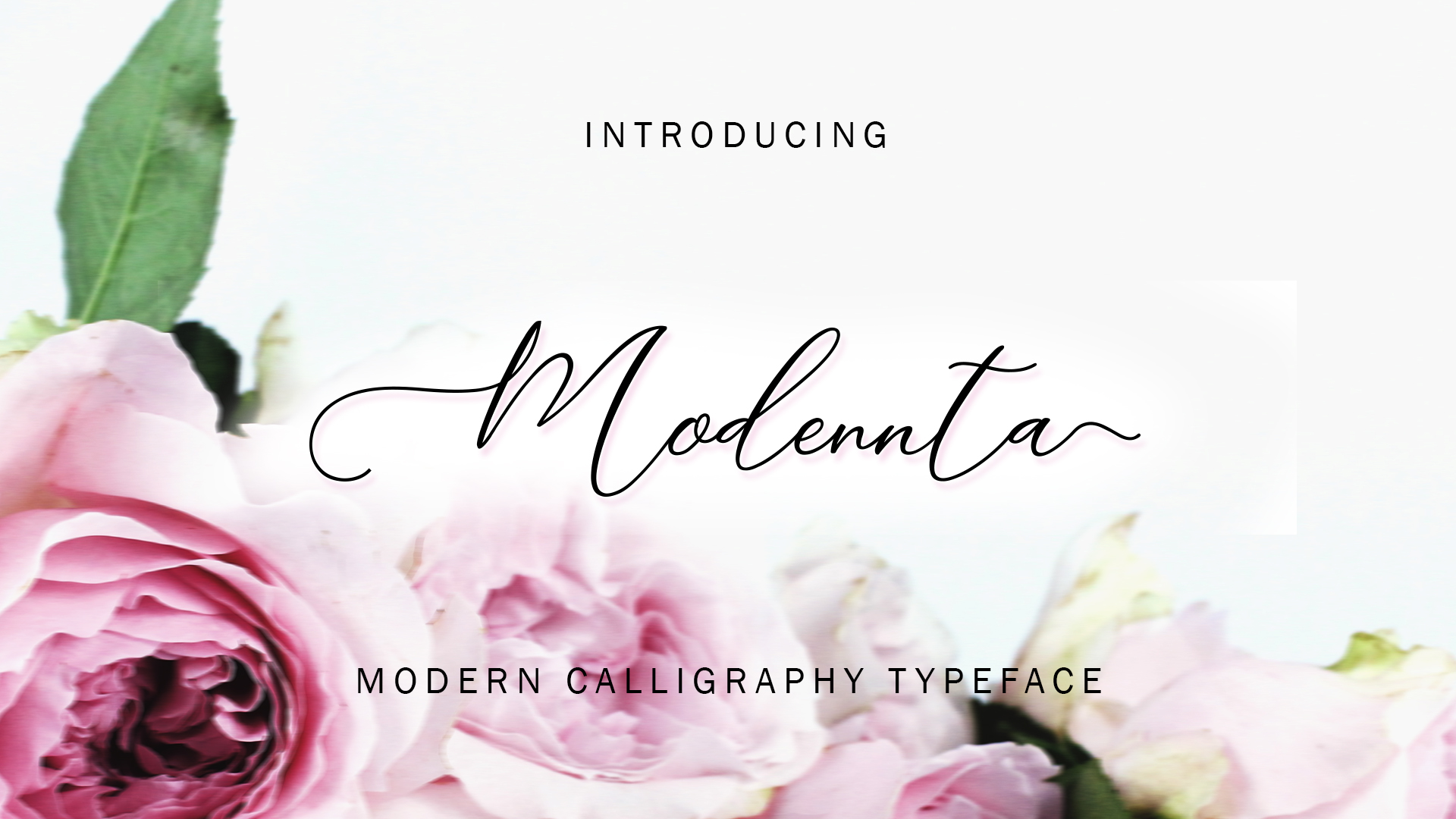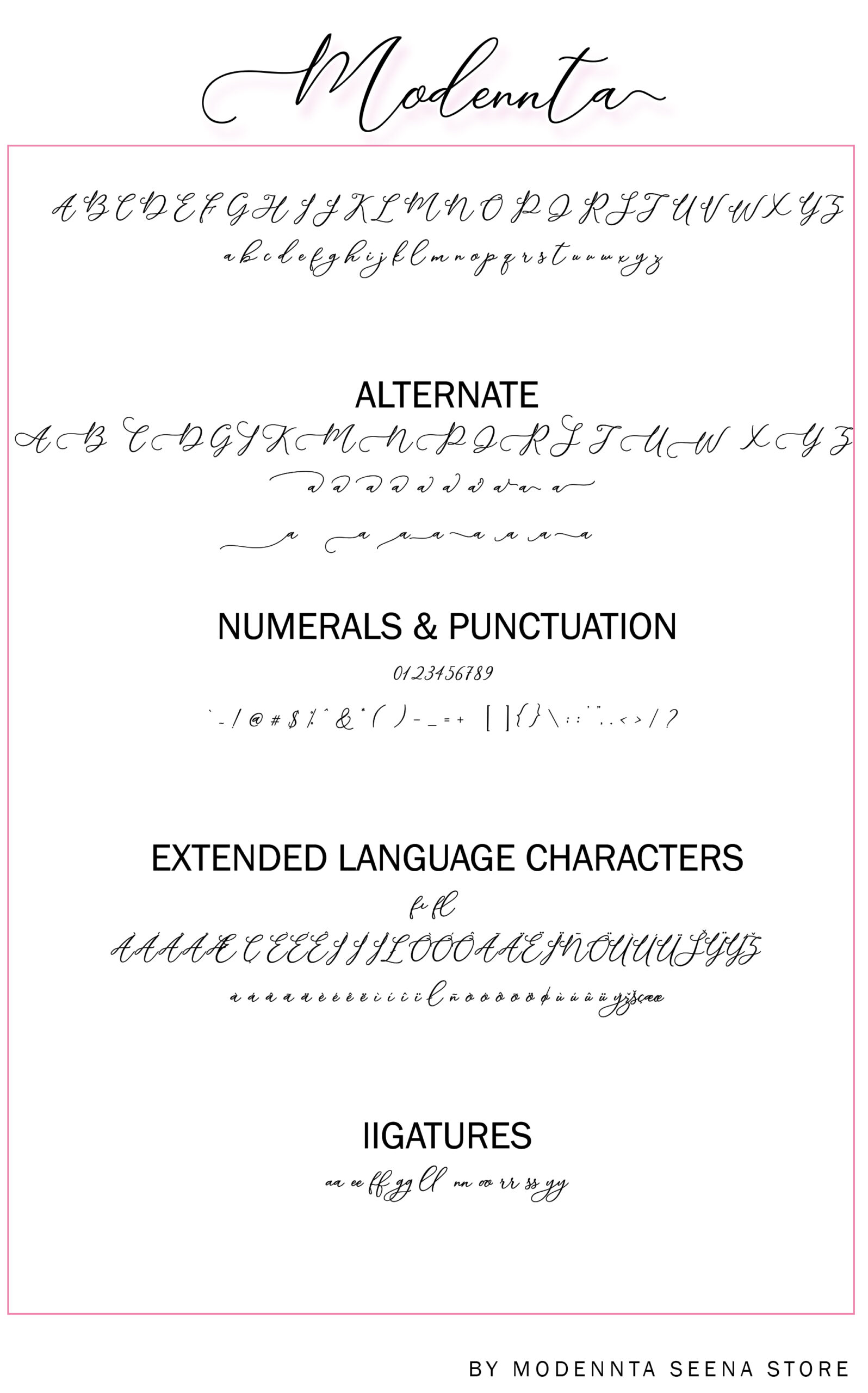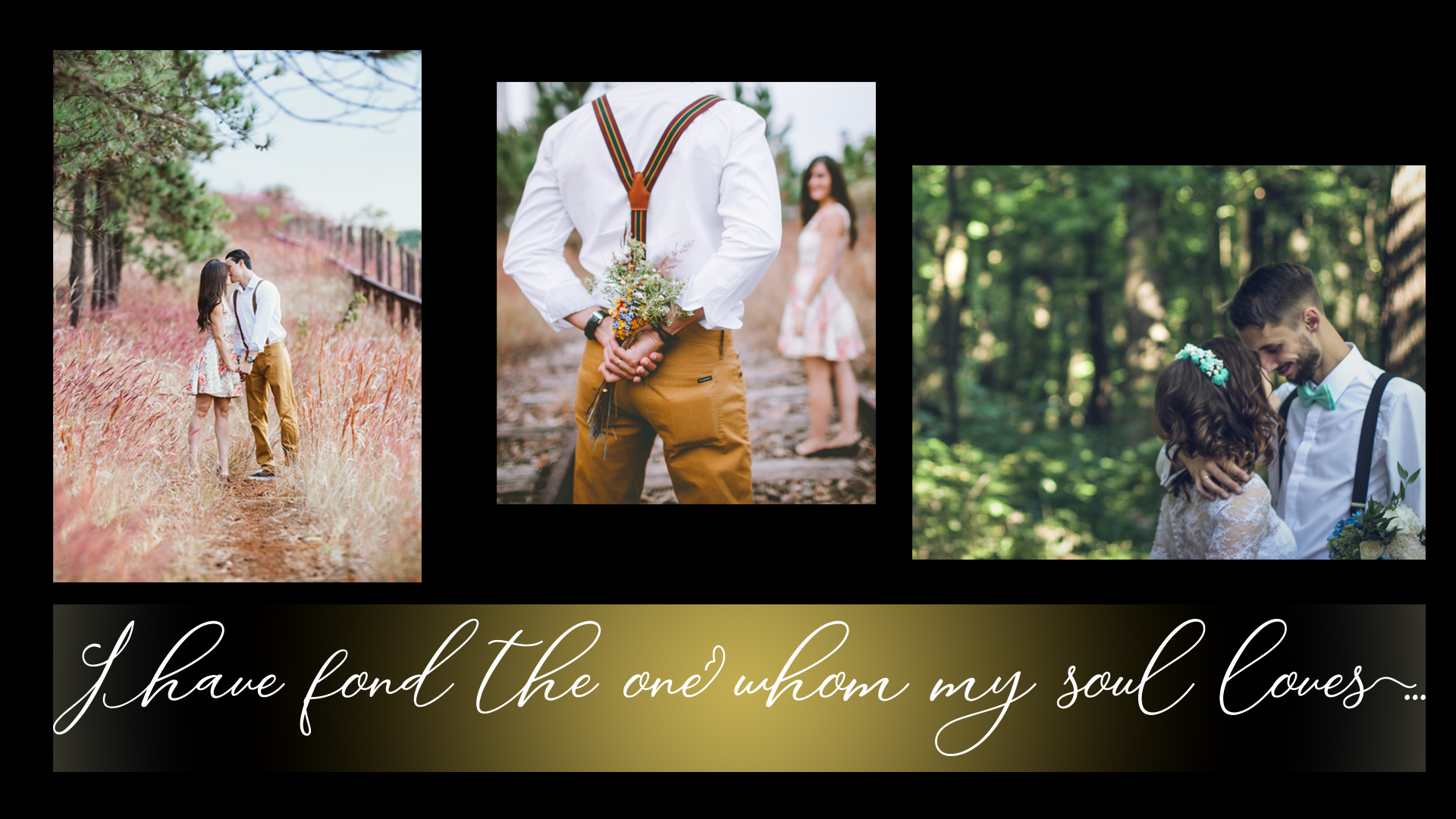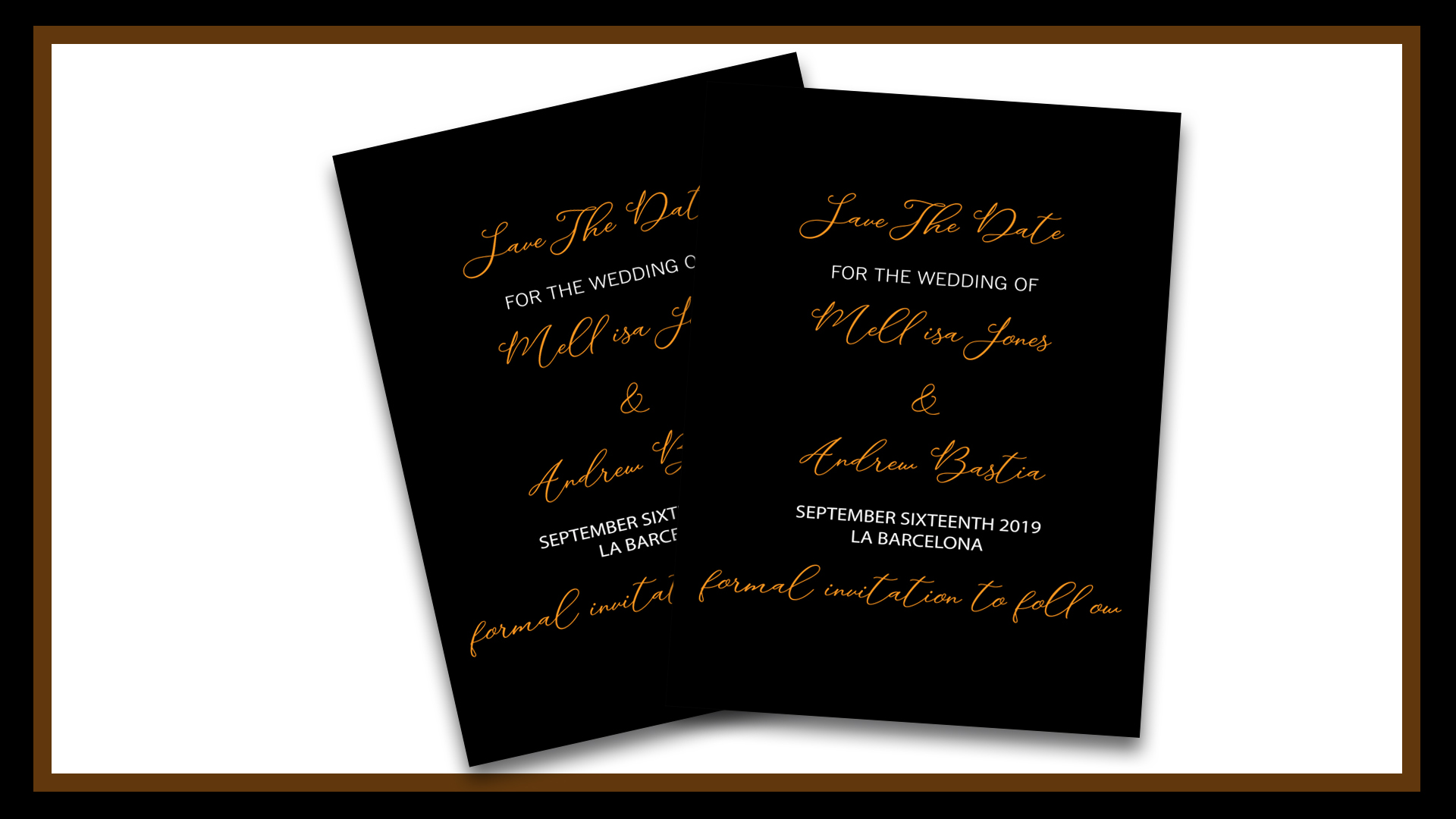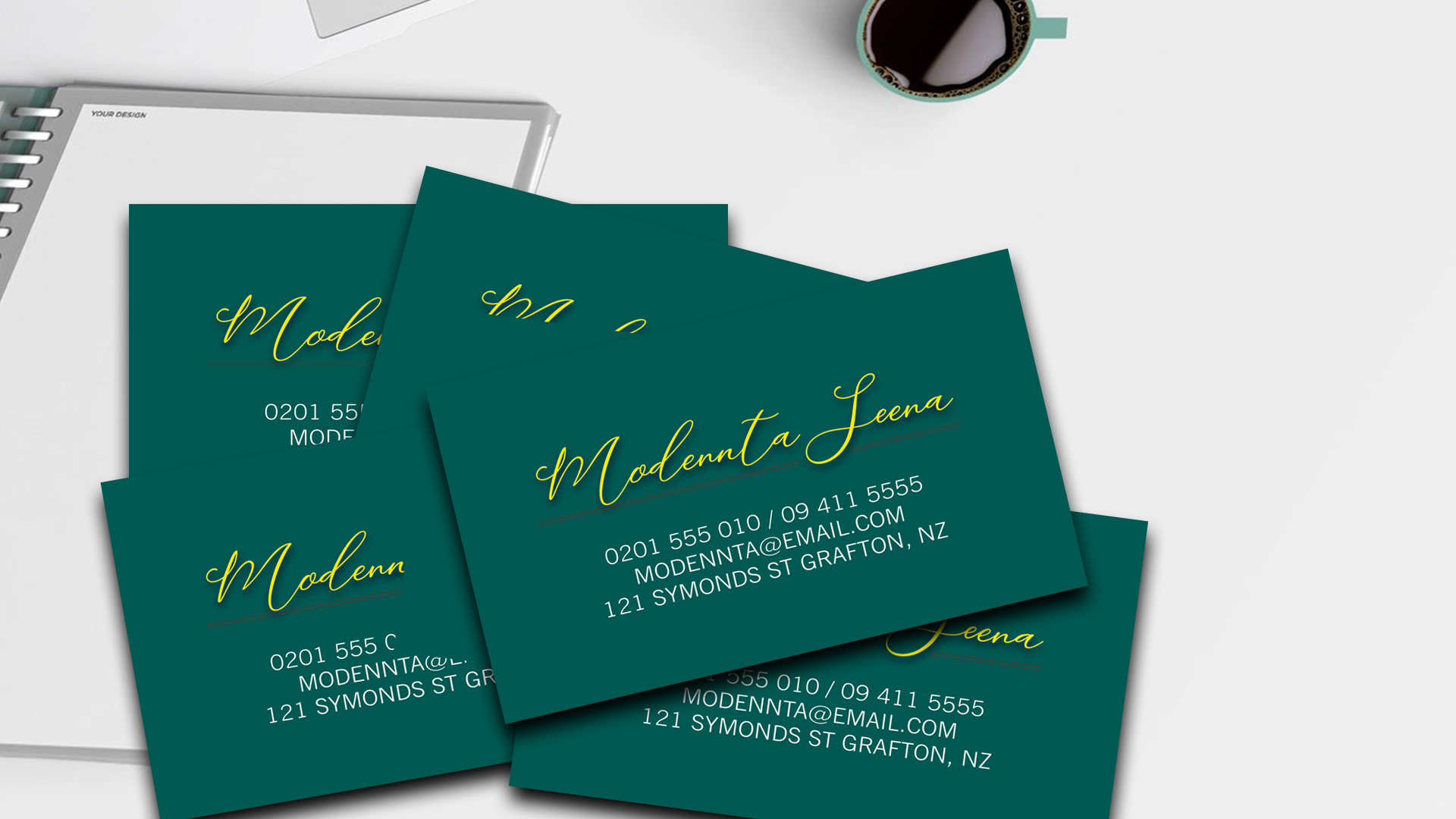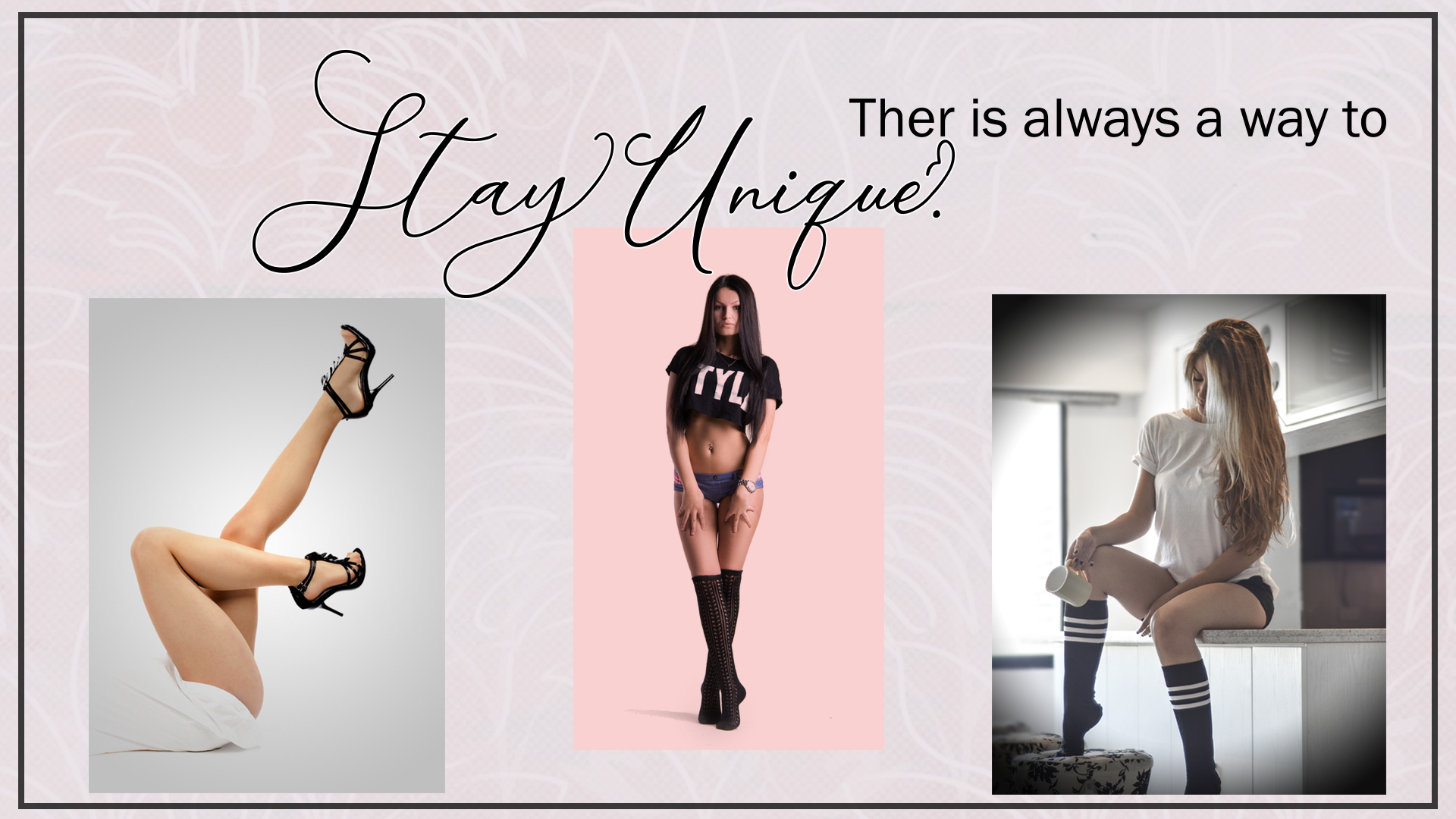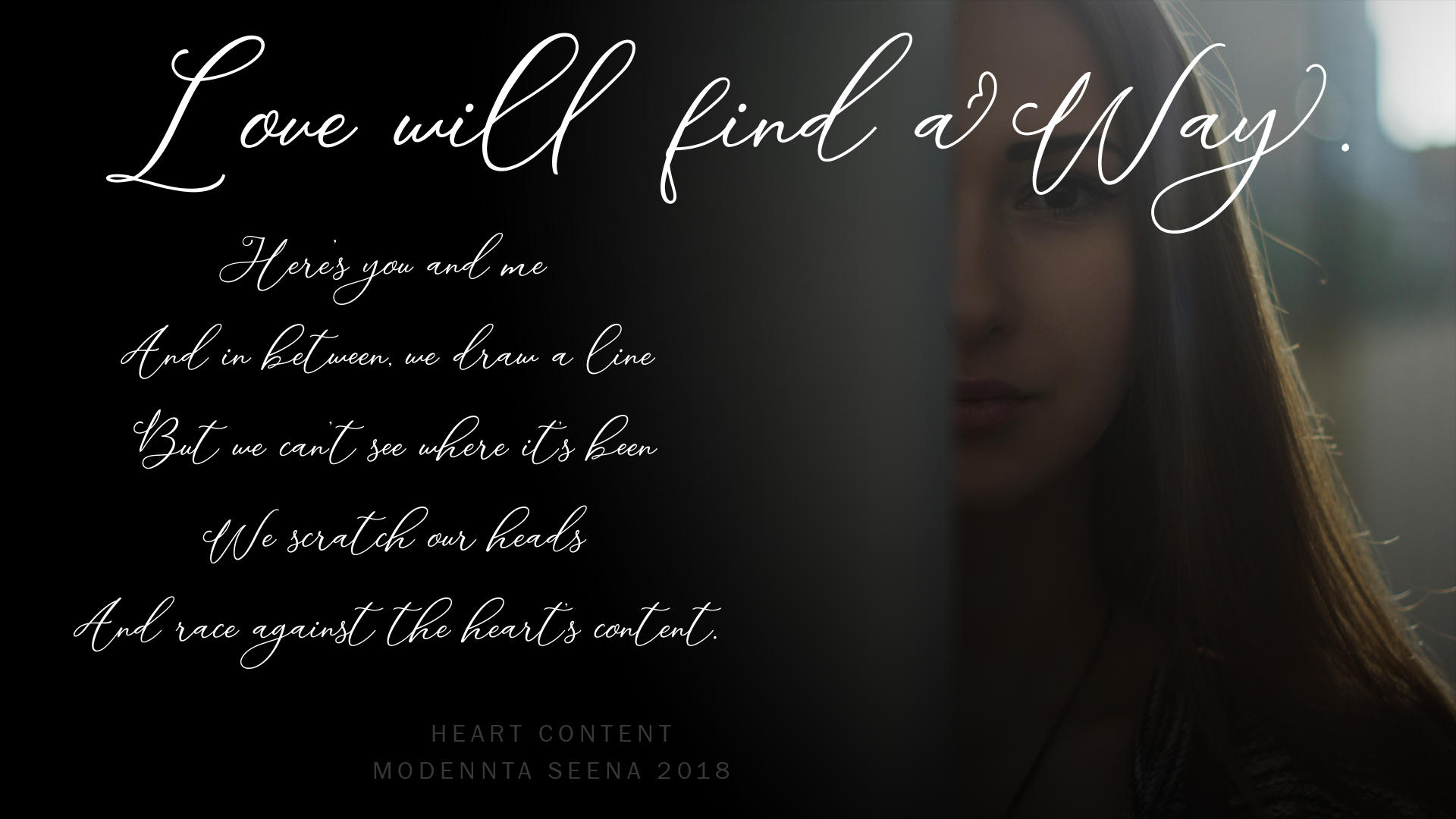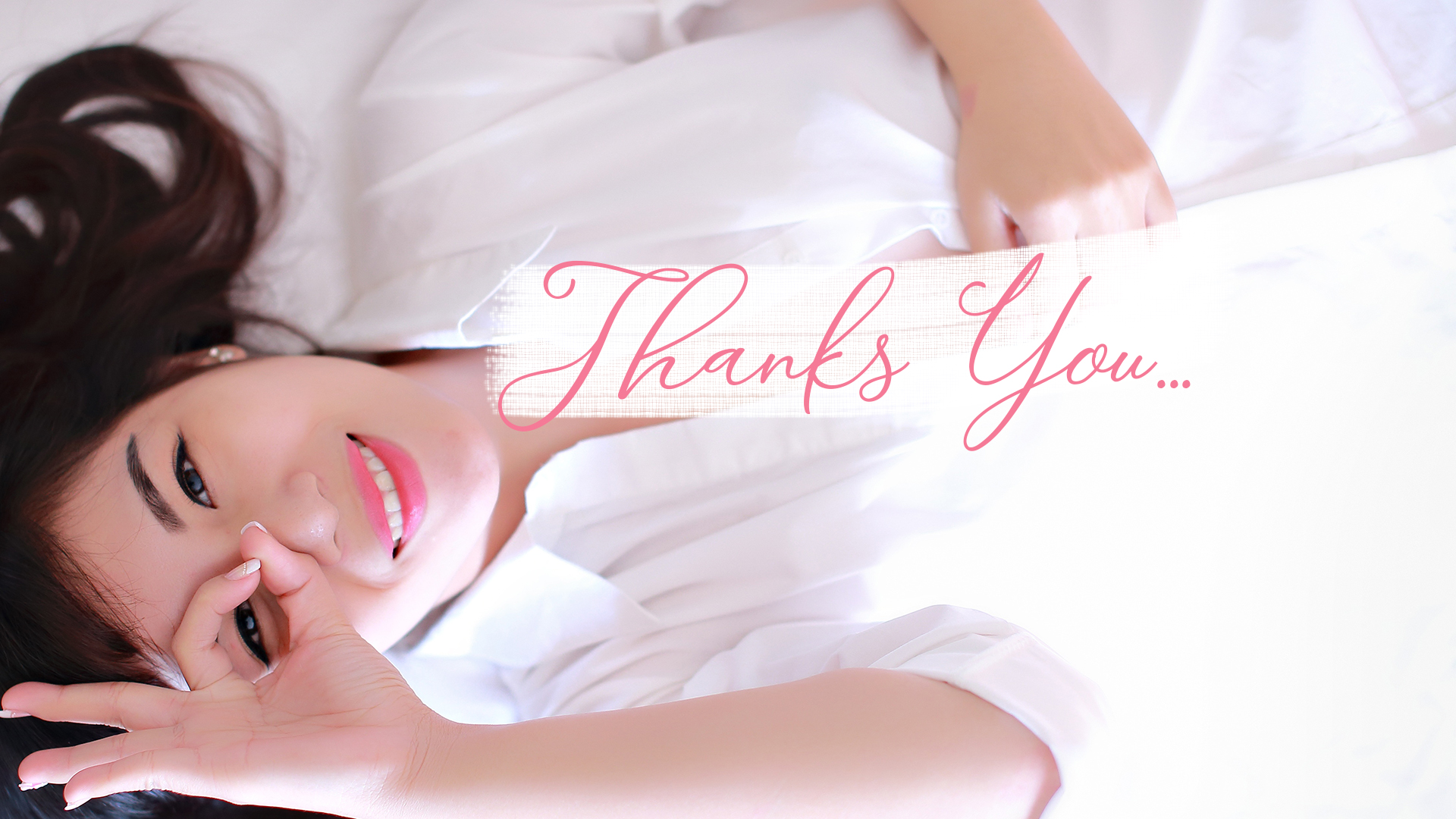
Modennta Script Font
About Modennta Script Font
The Modennta Script – An elegant and easy-to-read font. It can be used in all advertising materials, perfect for: branding, business card, packaging, flyer, logo, photos, books, packaging, posters, etc.